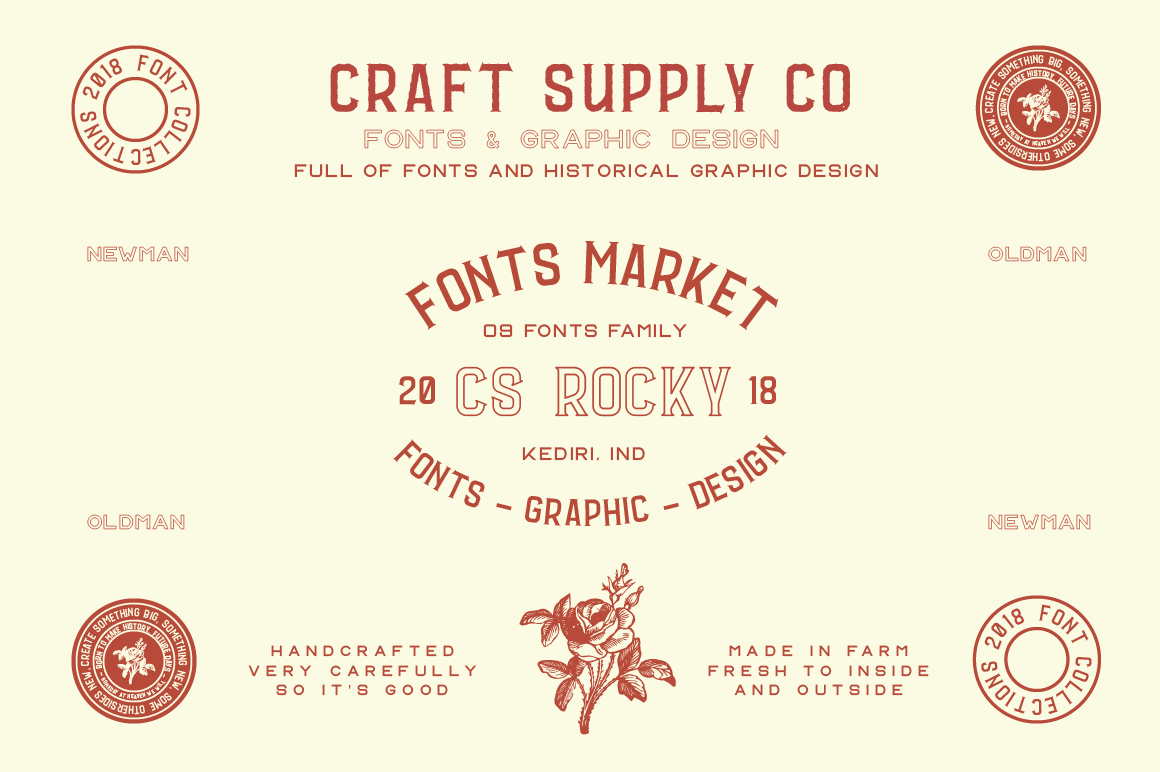
CS Rocky Font + Extras
Introducing CS Rocky includes 7 Style Fonts. It can be used to create almost all types of design projects like print materials. Just use your imagination and some graphic design set in Extras, your project will become more alive and look great than ever with one of the CS Rocky Font.
You want to make a greeting card or a package design, or even a brand identity, craft design, any DIY project, book title, wedding font, pop vintage design, retro design or any purpose to make your art / design project look pretty and trendy? Feel free to play with all the patterns and shape!
- CS Rocky Regular
- CS Rocky Inner
- CS Rocky Outline
- CS Rocky Vintage
- CS Rocky Vintage Dropline
- CS Rocky Vintage Outline
- CS Rocky Vintage Rough